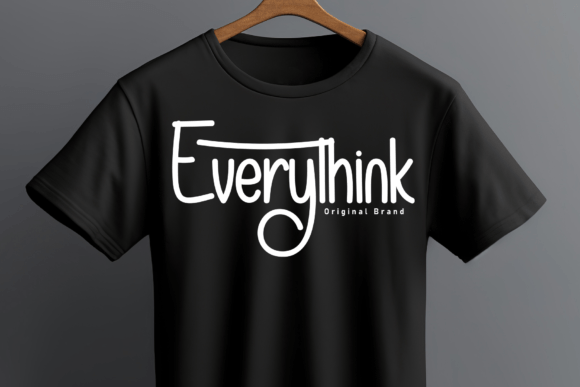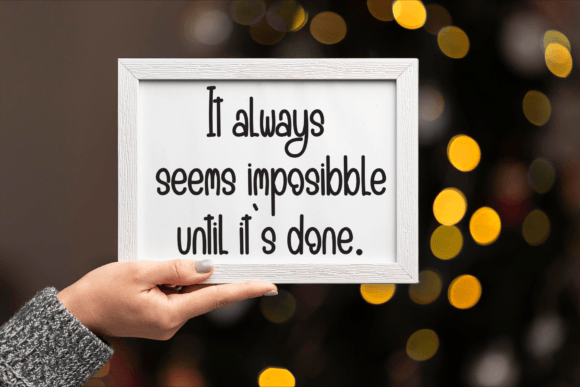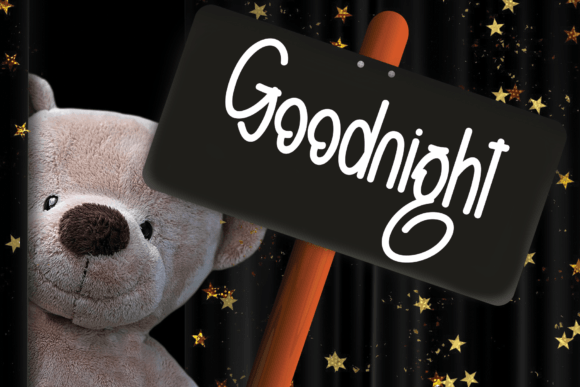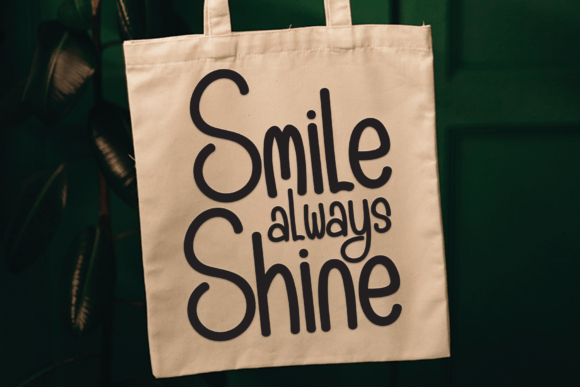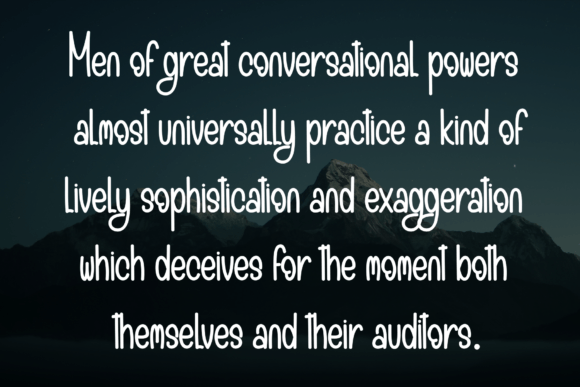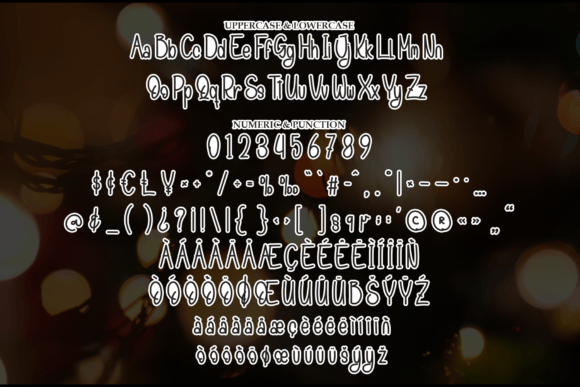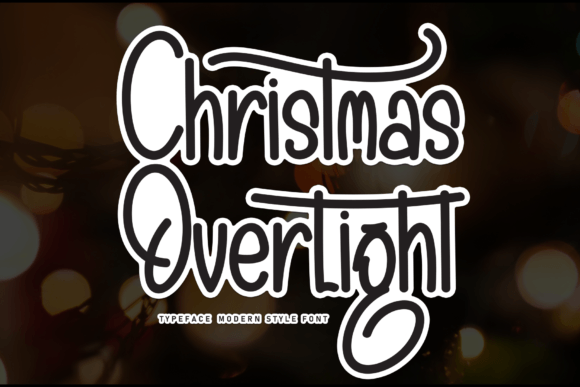
Introducing Christmas Overlight Font: Add a Touch of Holiday Magic to Your Designs
Are you looking for a font that embodies the festive spirit of Christmas? Do you want to add a playful twist to your holiday designs? Look no further than Christmas Overlight Font! This whimsical handwritten font is designed to capture the joy and cheer of the season, making it perfect for designers and crafters who want to spread holiday cheer in their projects.
The Perfect Font for Festive Designs
Christmas Overlight Font is a unique and charming font that brings a touch of holiday magic to your designs. Its joyful strokes and charming curves are sure to make your projects stand out. Whether you’re designing holiday cards, gift tags, or social media graphics, this font is sure to add a festive touch that will delight your audience.
One of the best things about Christmas Overlight Font is its playful and whimsical feel. The font’s handwritten style gives it a personal and friendly touch that’s perfect for the holiday season. The letters seem to dance across the page, infusing your designs with the warmth and merriment of the season.
What You Can Use Christmas Overlight Font For
Christmas Overlight Font is a versatile font that can be used for a wide range of holiday designs. Here are just a few ideas to get you started:
- Gift tags and wrapping paper
- Holiday-themed blog posts and articles
- Festive crafts and DIY projects
Why Choose Christmas Overlight Font?
So why choose Christmas Overlight Font for your holiday designs? Here are just a few reasons:
- Unique and charming design that’s sure to stand out
- Playful and whimsical feel that’s perfect for the holiday season
- Versatile and can be used for a wide range of holiday designs
- Adds a touch of holiday magic to your projects
Get Ready to Spread Holiday Cheer!
In conclusion, Christmas Overlight Font is a must-have for designers and crafters who want to add a touch of holiday magic to their projects. Its unique and charming design, playful and whimsical feel, and PUA encoding make it the perfect font for festive designs. So don’t miss out on this amazing opportunity to elevate your holiday designs and spread cheer to your audience. Download Christmas Overlight Font today and make this holiday season one to remember!